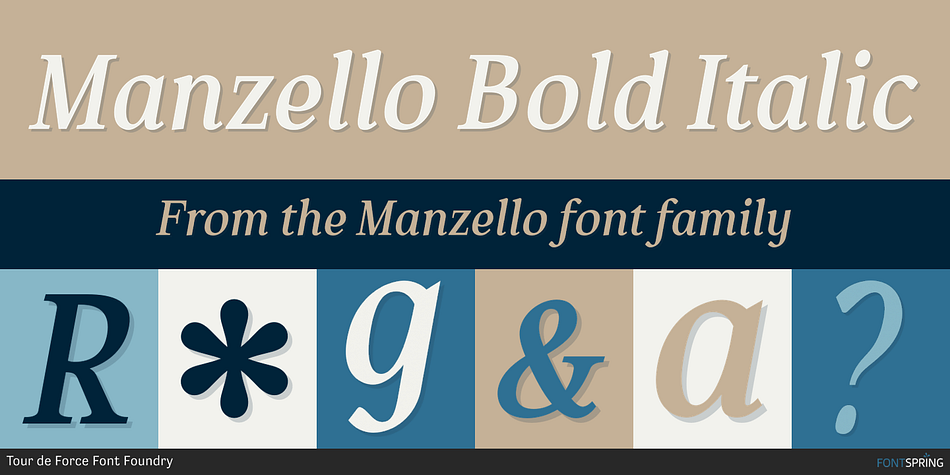
Manzello Bold Italic
Manzello is a serif font family. This typeface has four styles and was published by Tour de Force Font Foundry.
To start with one personal fact – I really like to listen Rahsaan Roland Kirk.
To start with one personal fact – I really like to listen Rahsaan Roland Kirk. He was multi-instrumentalist, real grandmaster and unique jazz virtuoso. The way he improvised and walked through variety of different music influences is admirable. One of things he liked is to modify instruments. He modified a soprano saxophone and got an instrument called ‘manzello’.
When I was looking for good name for this typeface, it came on my mind that Manzello could be perfect one. It has a symbolic background from the instrument. In my mind I imagined it as typeface that relies on stable classic examples, but is graphically designed and modified to match modern standards.
Manzello contains a dose of characteristics of display typefaces with terminals that aren’t perfectly rounded, high contrast between stems and good balanced Italics with elements of fine calligraphy. It is a small font family, something what I was always looking for to have as first text solution in my web and graphic projects.